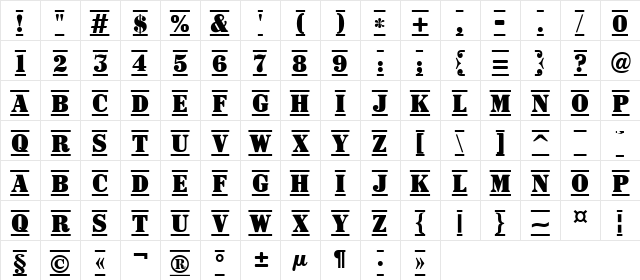
a_SignboardTitulDcFr Regular Free Font
a_SignboardTitulDcFr Regular
Design Context for a_SignboardTitulDcFr
a_SignboardTitulDcFr is a composed and adaptable typeface that performs quietly and consistently across a wide range of design contexts.